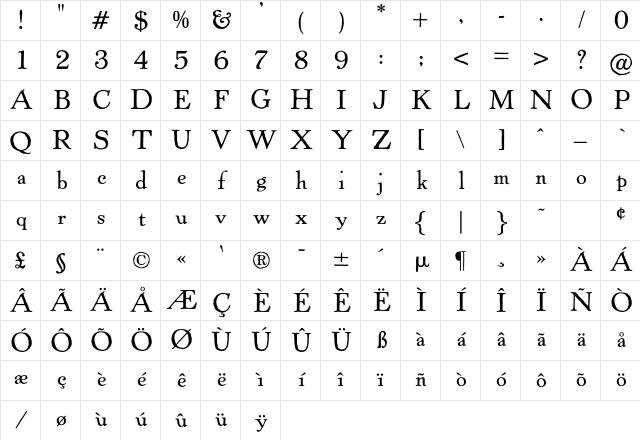
CrawfordOldStyle Regular
Design Context for CrawfordOldStyle
CrawfordOldStyle carries the refined structure of traditional serif typography, with bracketed terminals and considered proportions that communicate credibility and craft.